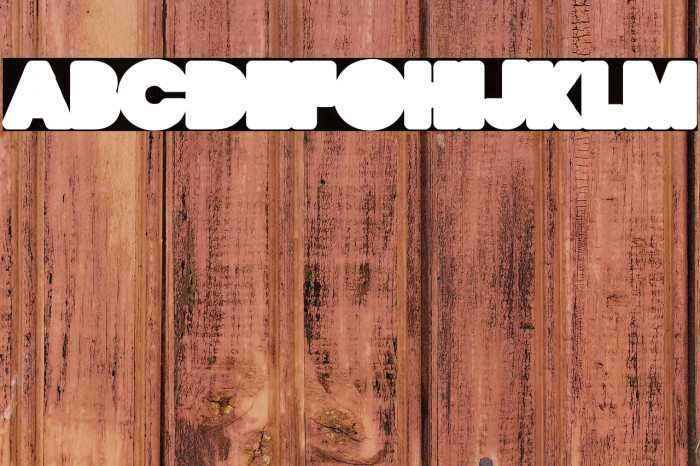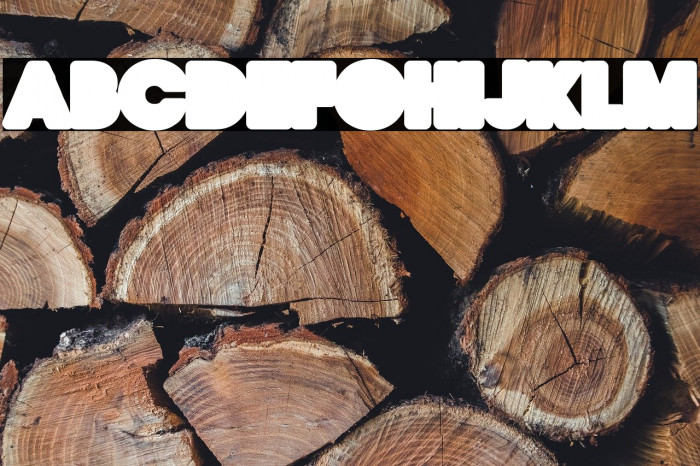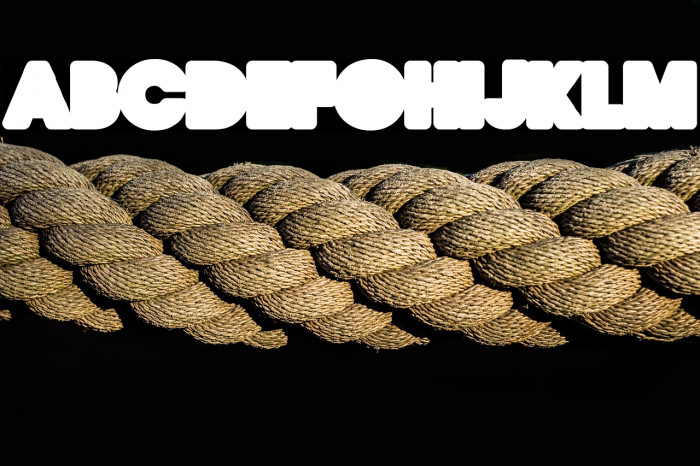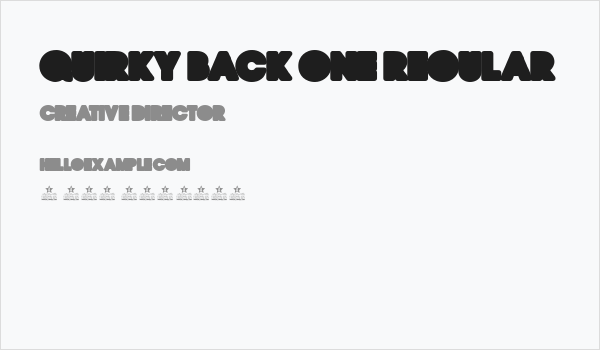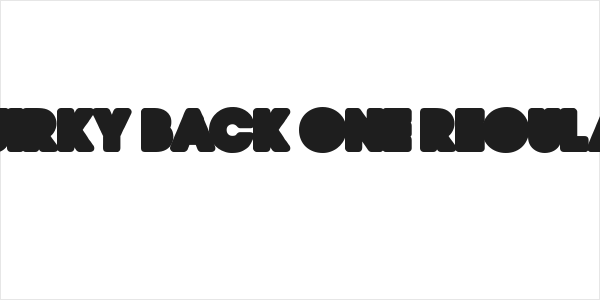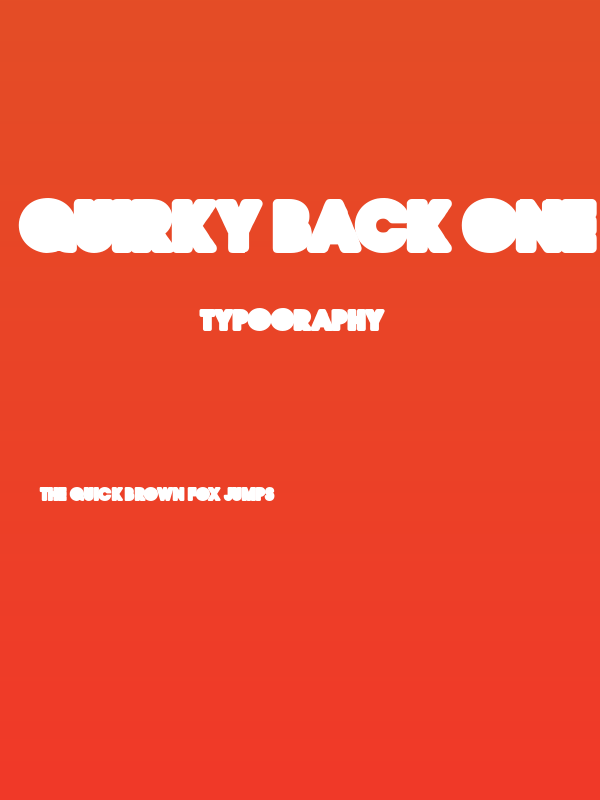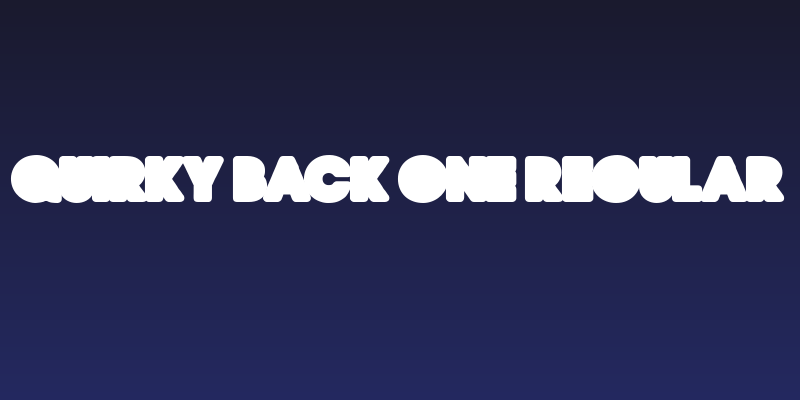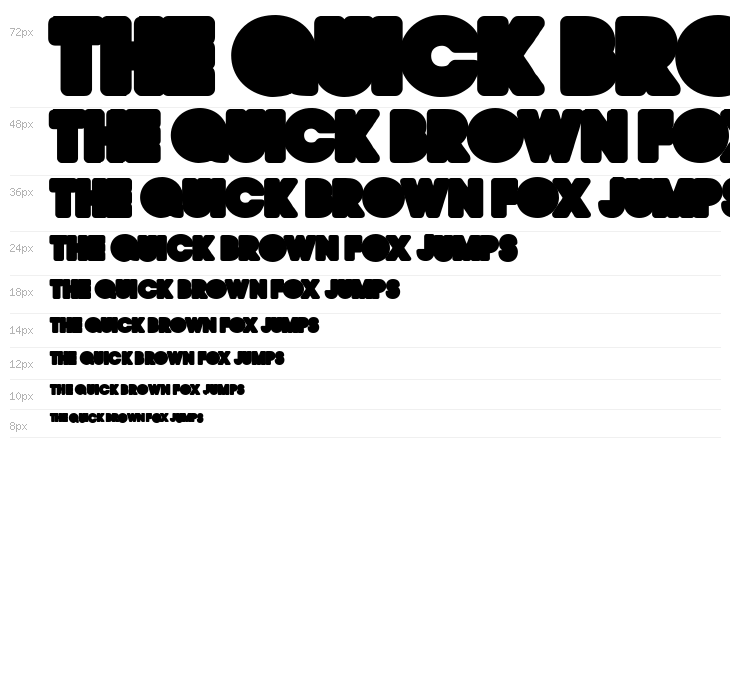
QUIRKY BACK ONE Regular Font
QUIRKY BACK ONE Regular Description
This font features bold, rounded characters with a playful and quirky style. The letters are thick and have a strong presence, making them ideal for attention-grabbing designs. The rounded edges give it a friendly and approachable feel, while the uniform thickness across all characters ensures consistency. This font is particularly suitable for creative projects that require a fun and lively aesthetic. The uppercase and lowercase letters maintain the same boldness, and the numbers and special characters are designed to match the overall style, ensuring a cohesive look across all text elements.
Overall StylePlayful, Quirky
Proposed ProjectsIdeal for children's books, playful branding, posters, and social media graphics.